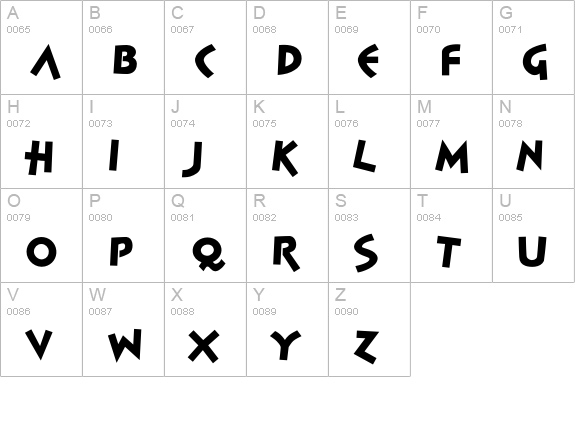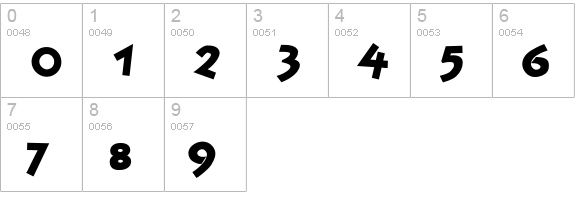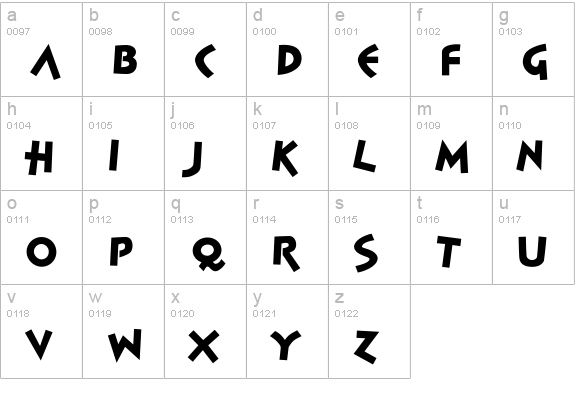
Spontan-Black Font Details
Spontan-Black is a maximum-weight, dramatic variant in the Spontan typeface family \xE2\x80\x94 well suited to maximum-impact headlines, posters, and packaging.
Spontan-Black is a captivating and versatile font that exudes elegance and sophistication. Its bold and curvaceous letterforms make a bold statement while maintaining a sense of effortless fluidity. This font is perfect for adding a touch of modernity and style to any design project. With its sleek and sleek design, Spontan-Black is sure to catch the eye and leave a lasting impression. Whether used in headlines, logos, or body text, this font commands attention and demands to be noticed. The thick strokes and clean lines create a sense of strength and confidence, making it a great choice for projects that require a strong visual impact. What sets Spontan-Black apart is its versatility and adaptability. It seamlessly blends into a variety of design styles, from contemporary to classic, adding a touch of sophistication and professionalism. Its timeless appeal ensures that it will remain relevant and stylish for years to come. One of the best things about Spontan-Black is that it is freely available to download at FontsMarket.com. This means that you can access this stunning font without any cost, making it an excellent choice for designers and creatives on a budget. With just a few clicks, you can elevate your designs and take them to the next level with this fantastic font. So why wait? Download Spontan-Black now and let your creativity run wild. Whether you're working on a branding project, a website design, or any other creative endeavor, this font is sure to make a lasting impression. Don't miss out on the opportunity to add a touch of elegance and style to your work. Get Spontan-Black today and see the difference it can make.